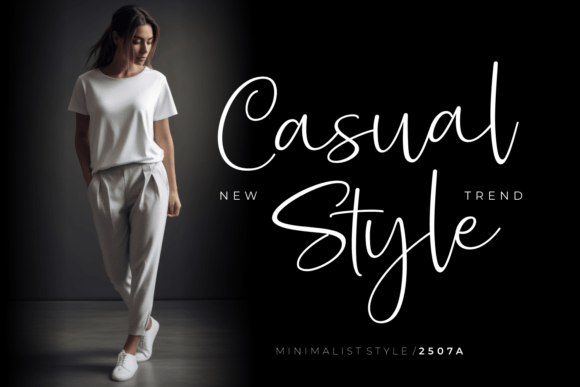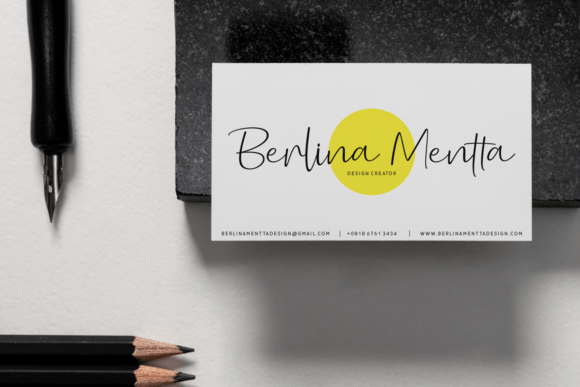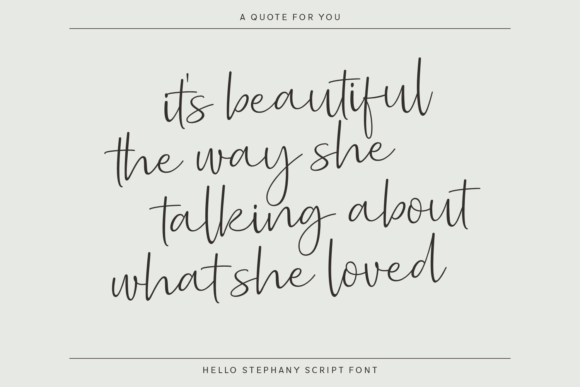
Introduction to Hello Stephany Font
Hello Stephany is a brand-new and stunning handwritten font that brings beauty and elegance to your projects.
With its graceful curves and flowing strokes, it adds a touch of sophistication to any design Perfect for invitations, cards, or any creative endeavor, Hello Stephany captures the artistry of handcrafted lettering with its natural and charming style.
Key Features of Hello Stephany Font
Why Choose Hello Stephany Font?
Hello Stephany Font offers exceptional quality and versatility, making it a valuable addition to your design toolkit. Whether you’re creating for personal projects or commercial use, Hello Stephany Font delivers professional results.